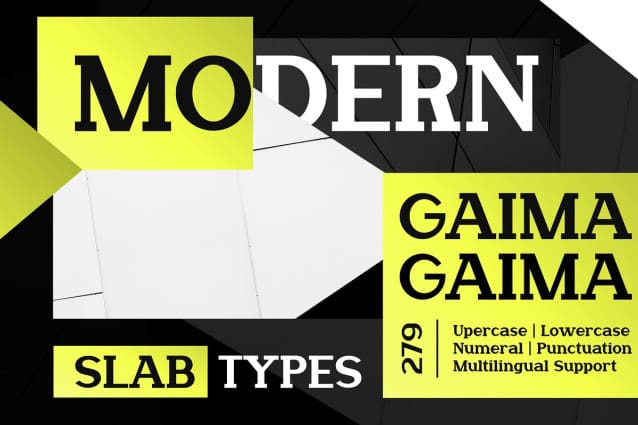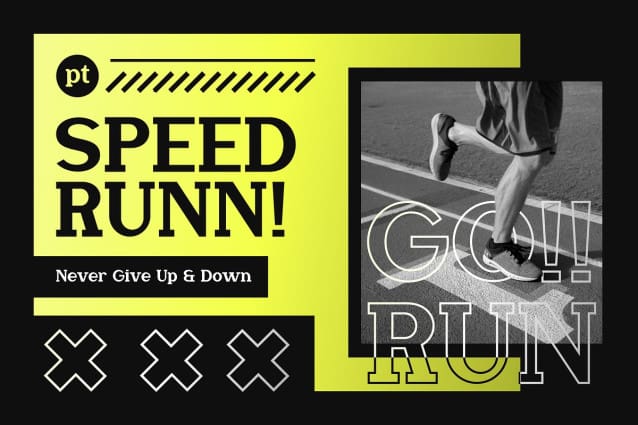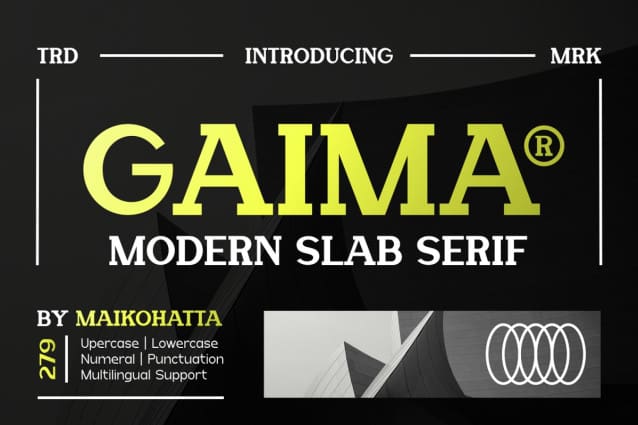
Gaima Font
Gaima Font – Modern Slab Serif. This font is characterized by reflecting joy, cheerfulness and a light atmosphere with a handwritten style often found in comics or cartoons. This font is perfect for projects that want to highlight elements of playfulness and fun, such as poster designs, invitation cards, comics, or promotional materials aimed at a younger audience or those looking for a fun feel.